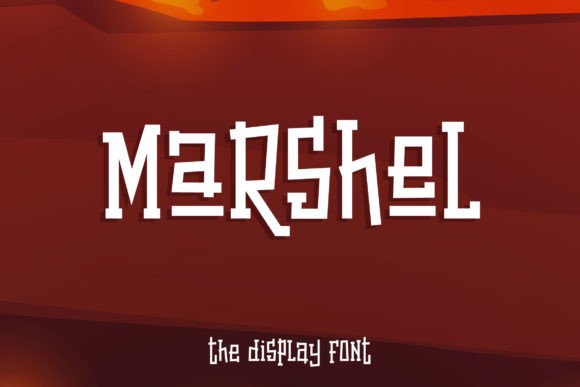
Prepare to be astounded by Marshel, a display font that exudes coolness and originality! This typographic gem is a must-have for your creative toolkit, ready to transform your designs into captivating masterpieces.
Marshel's distinct character shines through its bold strokes and sharp angles, creating a striking visual impact. Its modern aesthetic is a perfect match for contemporary website designs, adding a touch of sophistication and edginess to your digital presence.
Unleash your imagination and let Marshel elevate your creations to new heights. Whether you're crafting eye-catching headlines, designing captivating posters, or developing cutting-edge branding materials, this font has the power to turn your ideas into unforgettable experiences.
Don't settle for ordinary fonts. Embrace the extraordinary with Marshel and watch your designs come alive with a captivating allure. Its versatility knows no bounds, making it the perfect choice for a wide range of projects.